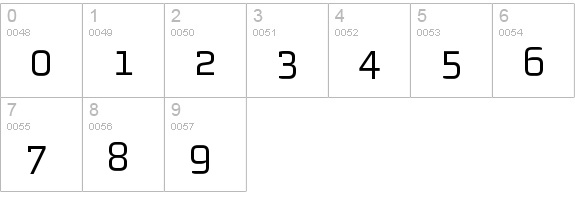
MorganAvec RegularOffice Font Details
MorganAvec RegularOffice font offers a perfect blend of professionalism and modernity, making it ideal for various office and business-related projects. This versatile font exudes a sense of elegance and sophistication, making it a great choice for creating sleek and polished documents, presentations, and designs. With its clean lines and balanced proportions, MorganAvec RegularOffice font is sure to elevate your work to the next level. Best of all, this high-quality font is available for free download at FontsMarket.com. Whether you are working on corporate materials, reports, or marketing materials, MorganAvec RegularOffice font will help you achieve a polished and professional look effortlessly. Download it today and add a touch of refinement to your projects.